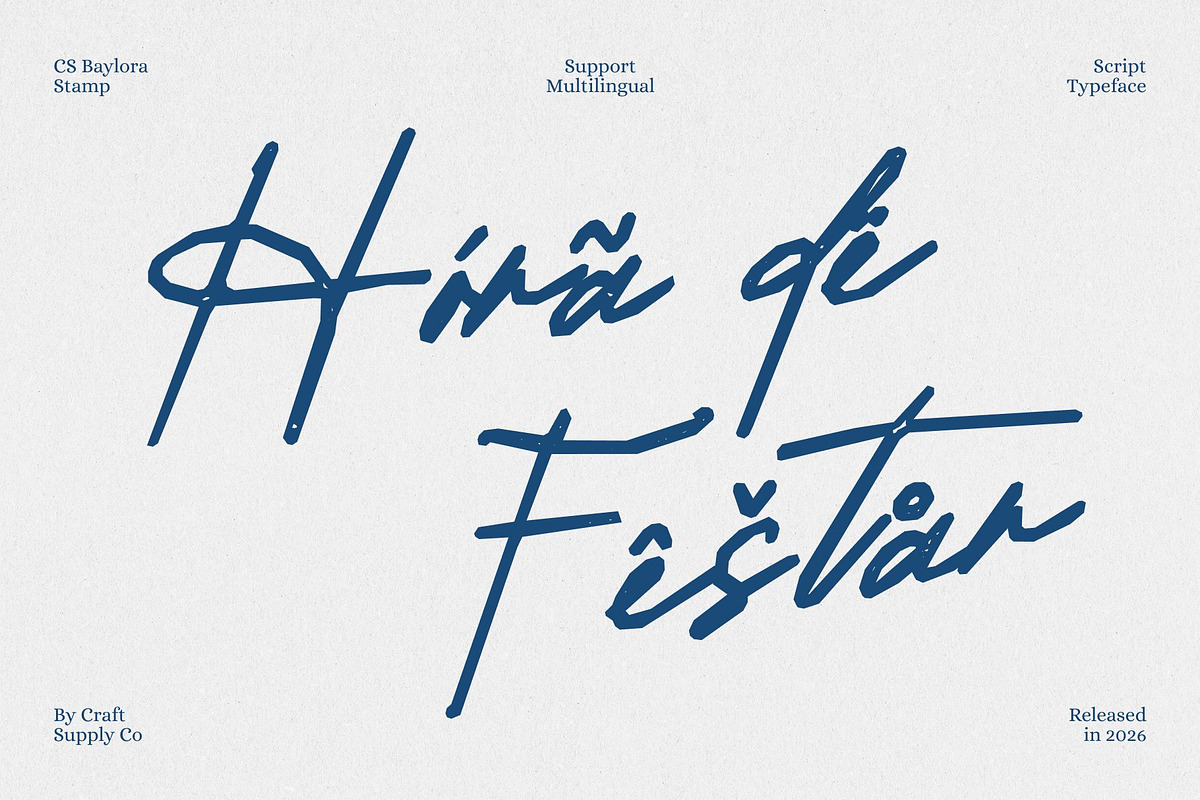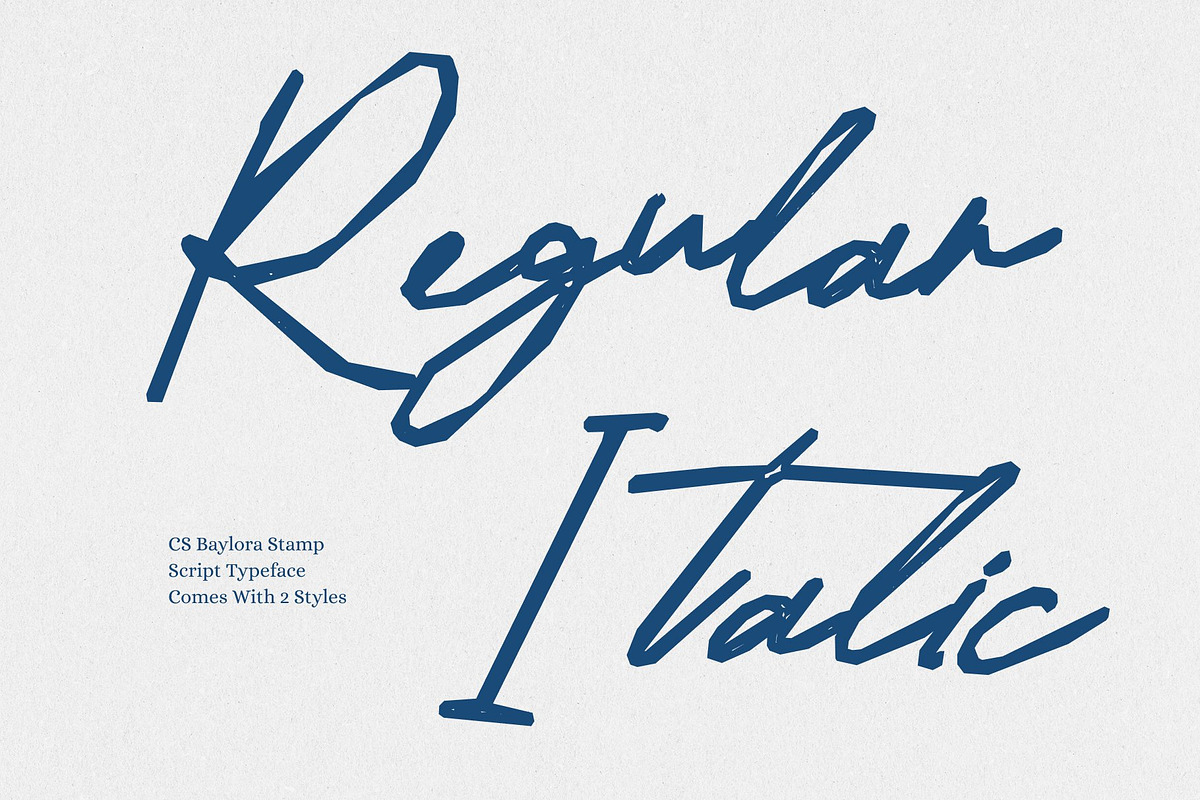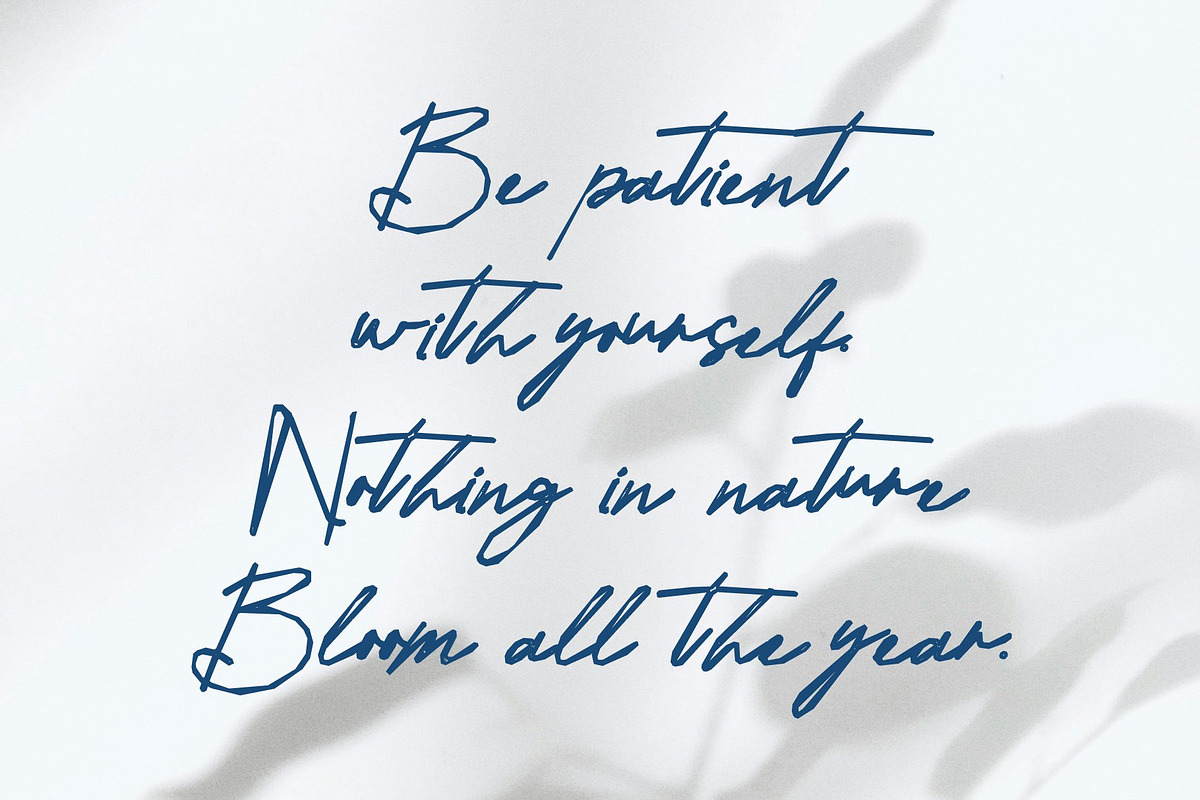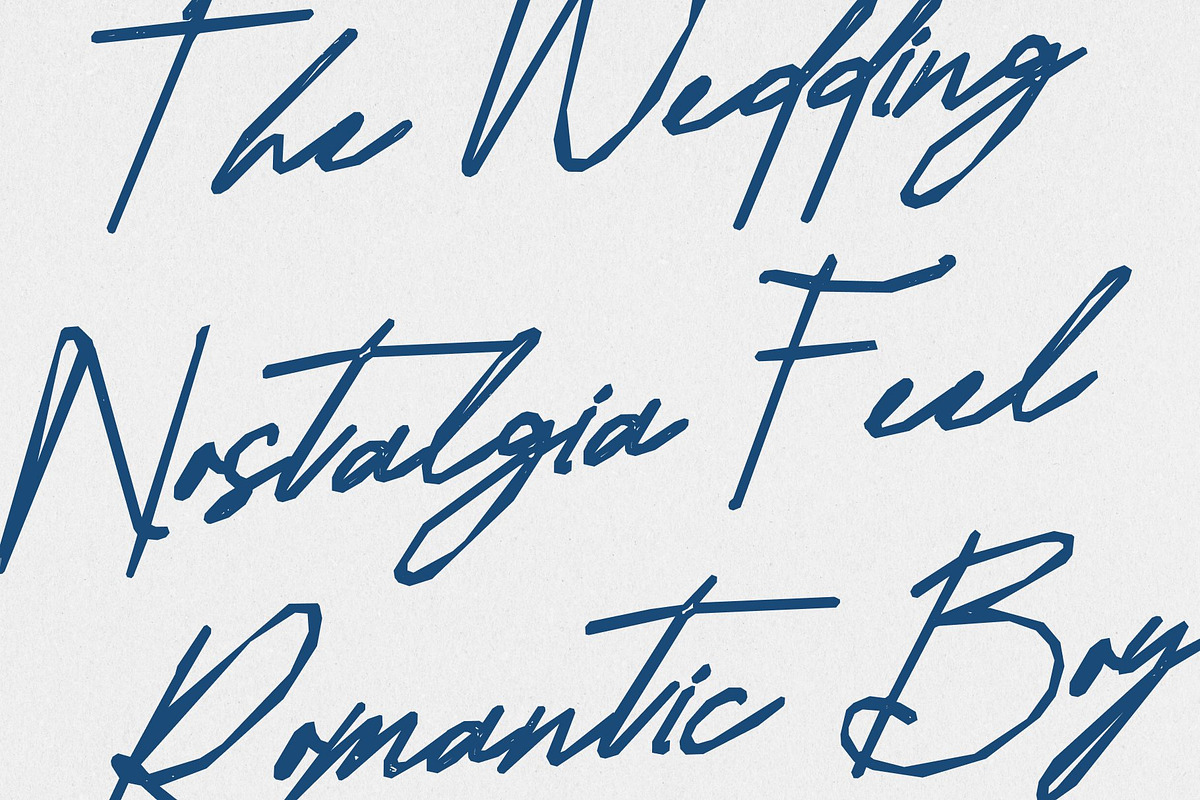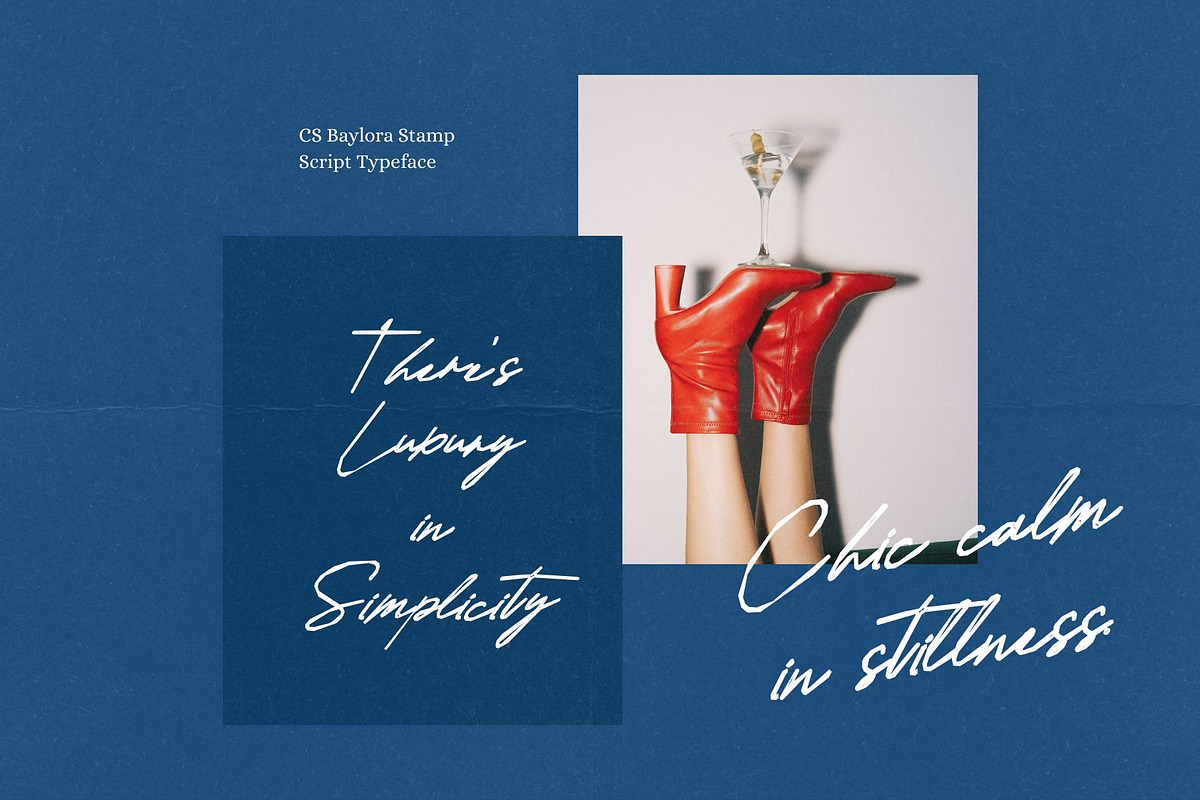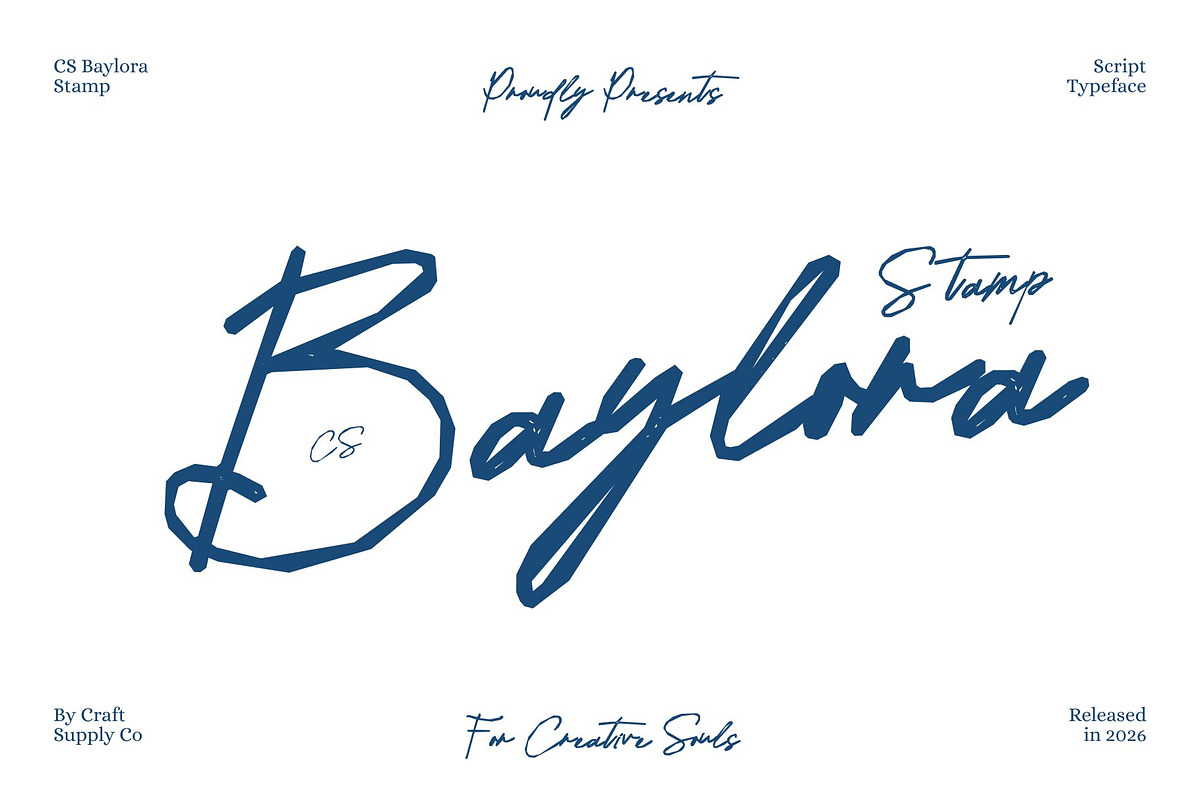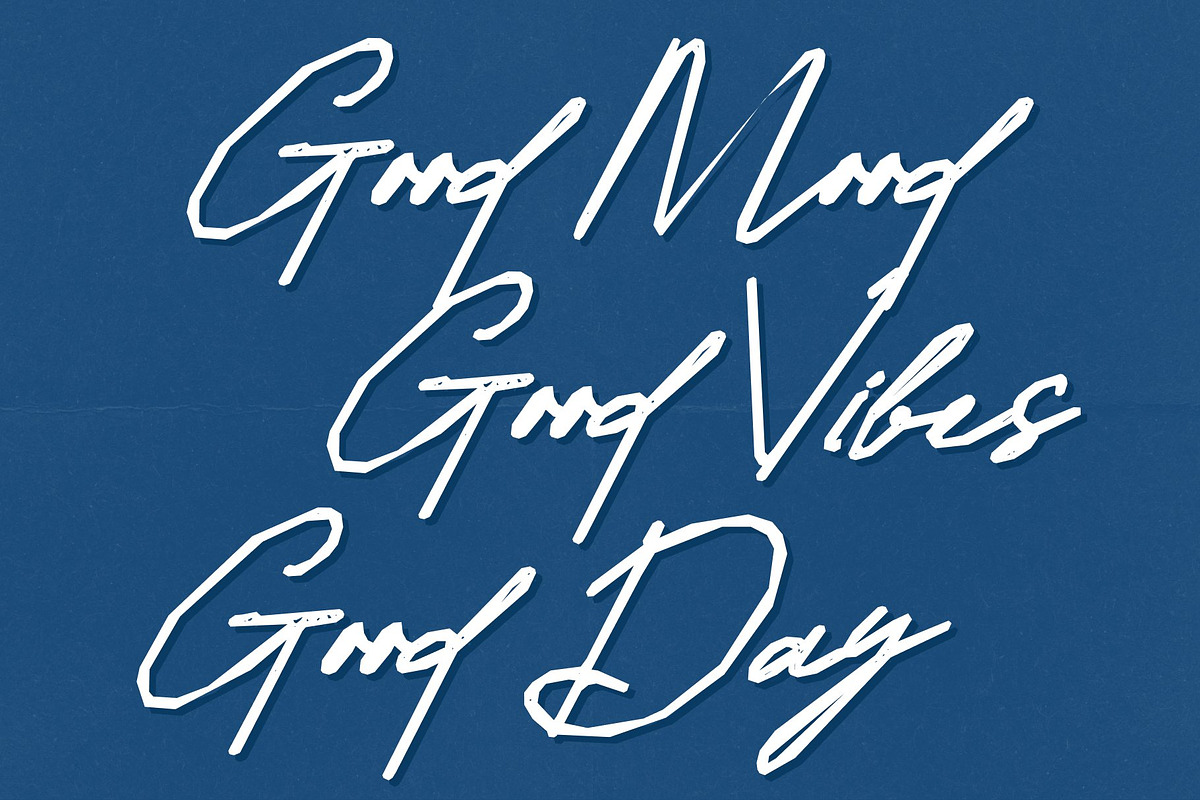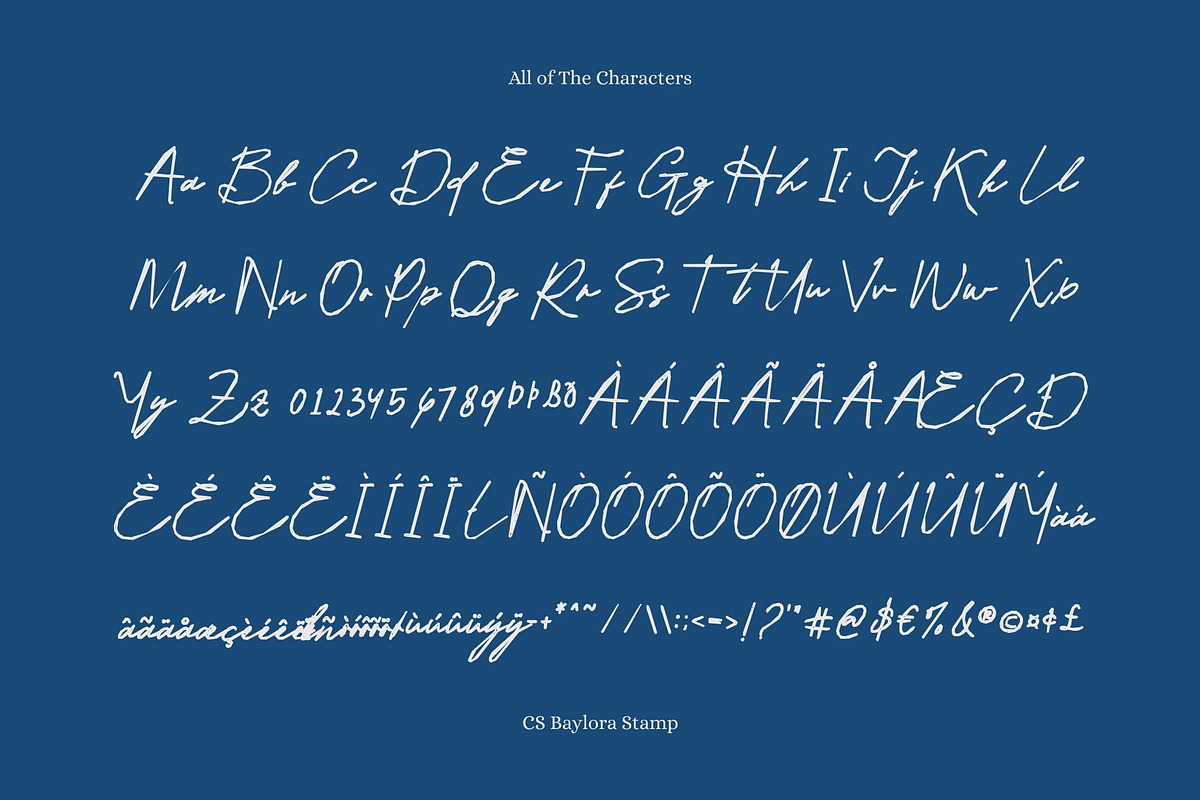
CS Baylora Stamp
CS Baylora Stamp – Elegant Signature Script with Personal Sophistication Handwritten Elegance with Vintage Character This is a signature script font crafted to capture the fluid beauty of real handwritten signatures, enhanced with a subtle stamp effect. Its smooth, flowing strokes reflect the intimacy and exclusivity of personal handwriting, while the stamped texture introduces a soft vintage character adding depth, warmth, and artistic authenticity to every letter.
Smooth Signature Flow with Artistic Texture Each letterform flows naturally, mimicking the effortless movement of ink across paper. The graceful curves and gentle stroke variations create a refined rhythm that feels intentional yet organic. The stamp effect adds a lightly distressed, tactile finish, giving the font an aged elegance that feels expressive rather than polished-perfect.
Distinctive Personality for Refined Visual Identity This font stands out through its unique balance of elegance and imperfection. The signature-style curves convey confidence and individuality, while the textured surface brings character and emotional depth. This combination makes the font feel personal, artistic, and timeless—ideal for designs that value authenticity and style.
Perfect for Logos, Branding, and Luxury Invitations Designed for upscale and intimate applications, excels in logos, luxury branding, boutique identities, wedding invitations, packaging, and editorial accents. From personal monograms to premium brand signatures, this font delivers refined beauty with a handcrafted, vintage-inspired touch—turning every word into a statement of elegance and personality.